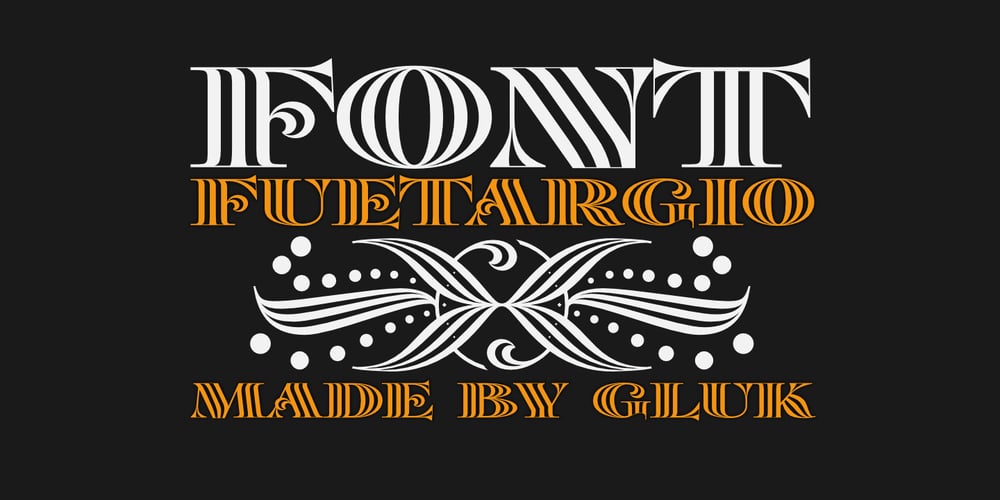
Fuetargio Font Family was designed by Grzegorz Łuksza and published by Glukfonts. Fuetargio contains 2 styles and family package options. Fuetargio is a decorative display font and includes additional Fuetargio Ornaments. It’s perfect for logos, titles, invitations or homemade banknotes. Languages supported: German, Irish, Romanian, Hungarian, Spanish, French, Italian, Turkish, Czech, Slovakian, Lithuanian, Latvian, Estonian, Basque, Albanian, Portugese, Dutch, Swedish, Icelandic, Danish, Croatian, Finnish, Norwegian, Polish, Bosnian, Lower Sorbian, Upper Sorbian, Kashubian, Breton, Slovene, Welsh, Walloon, Scottish Gaelic, Serbian, Belarusan Lacinka, Maltese, Esperanto, Greenlandic …